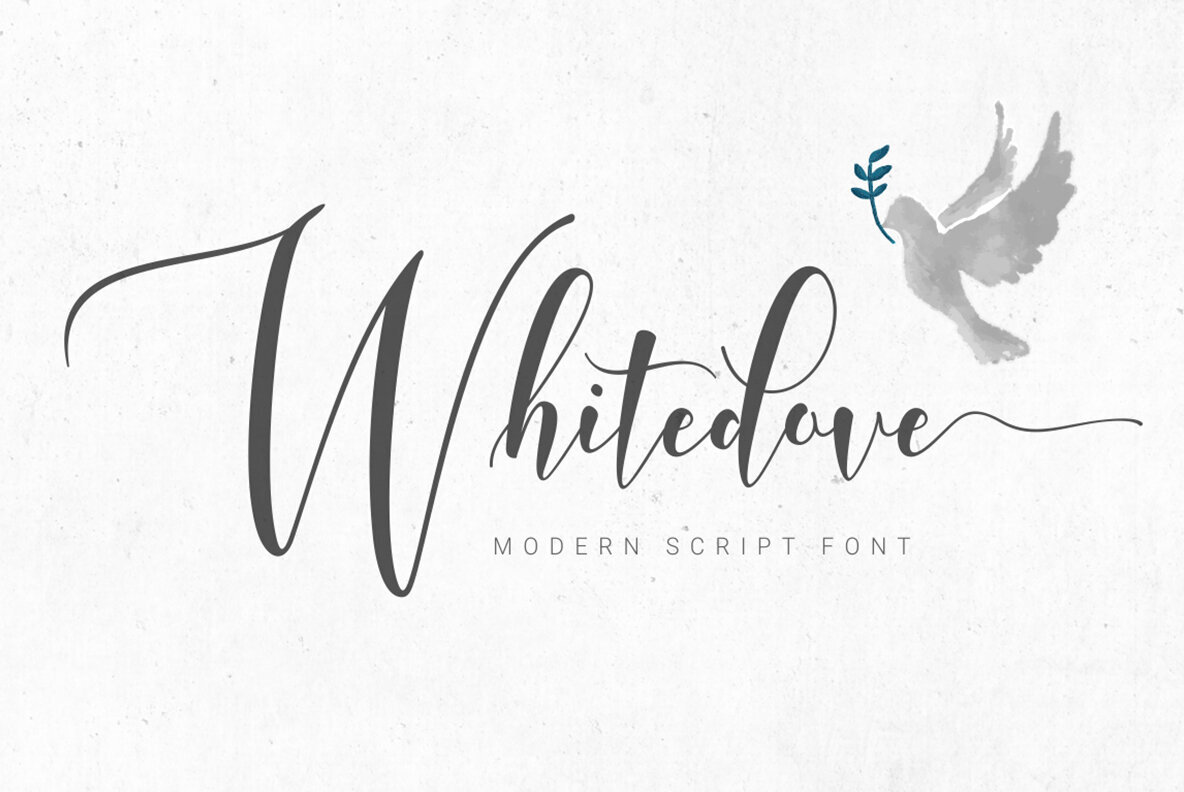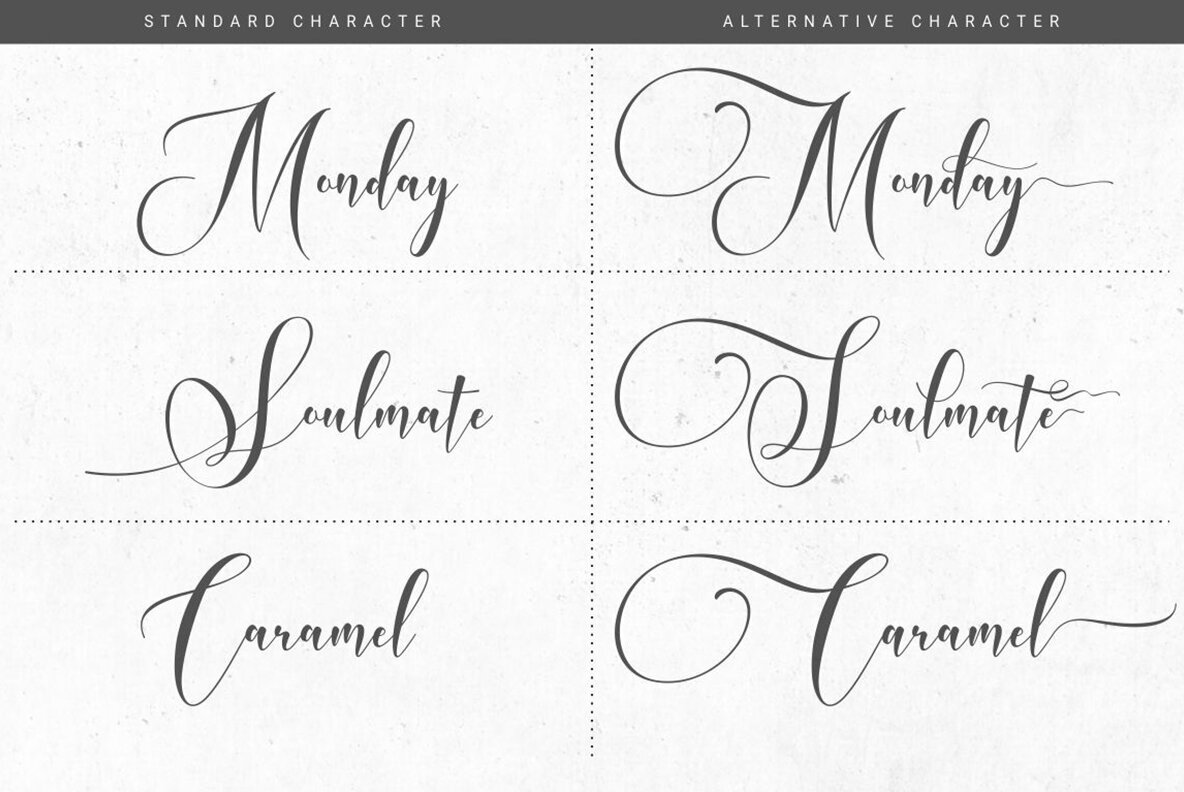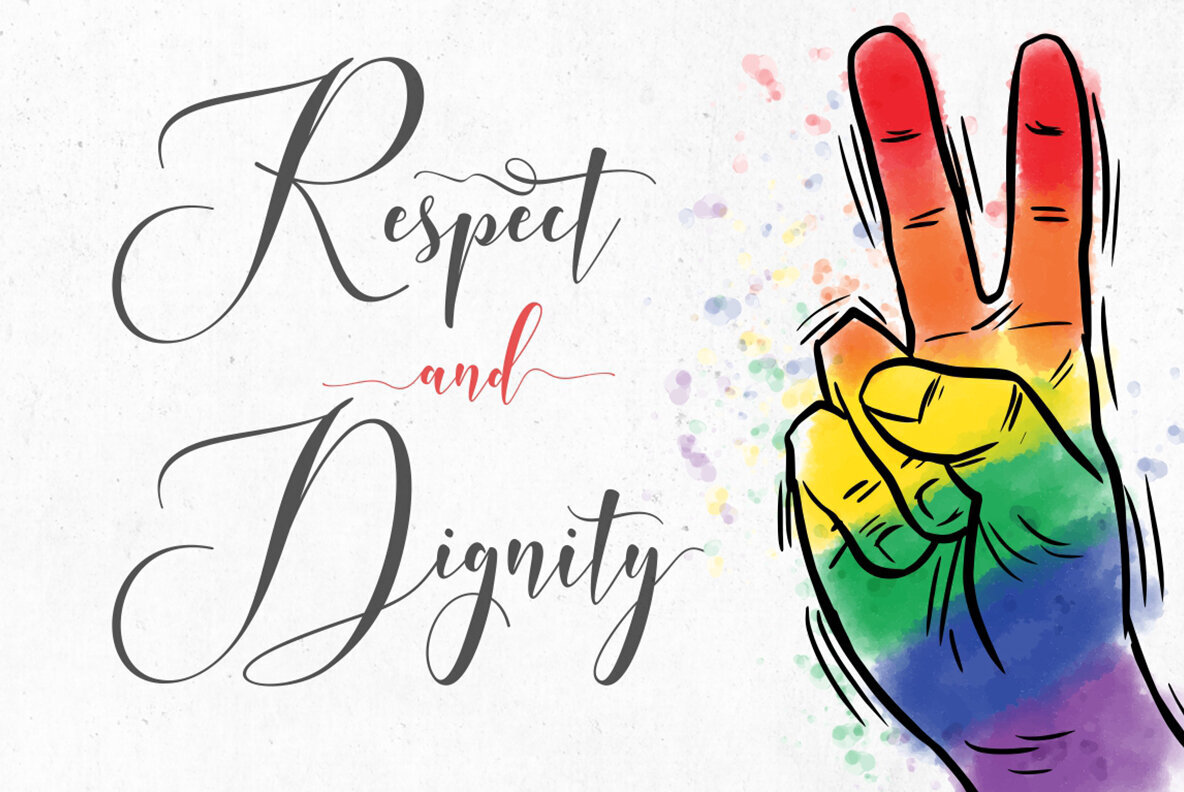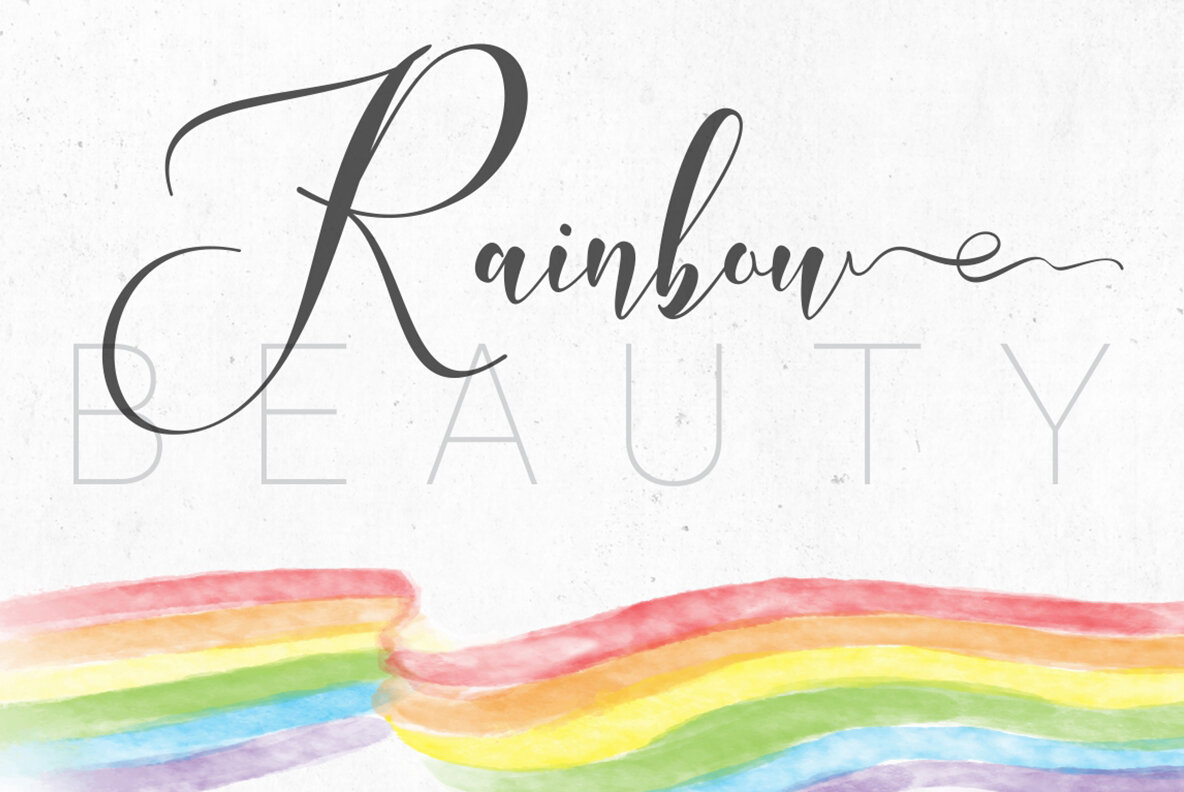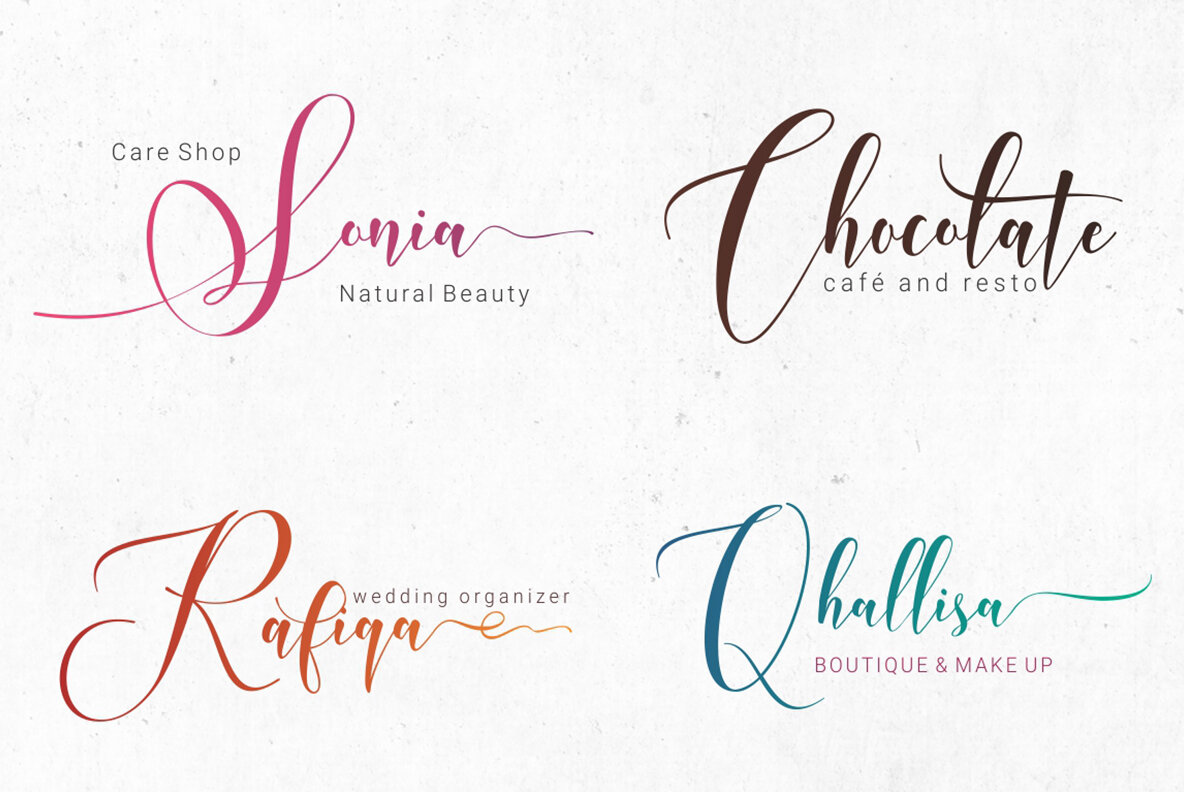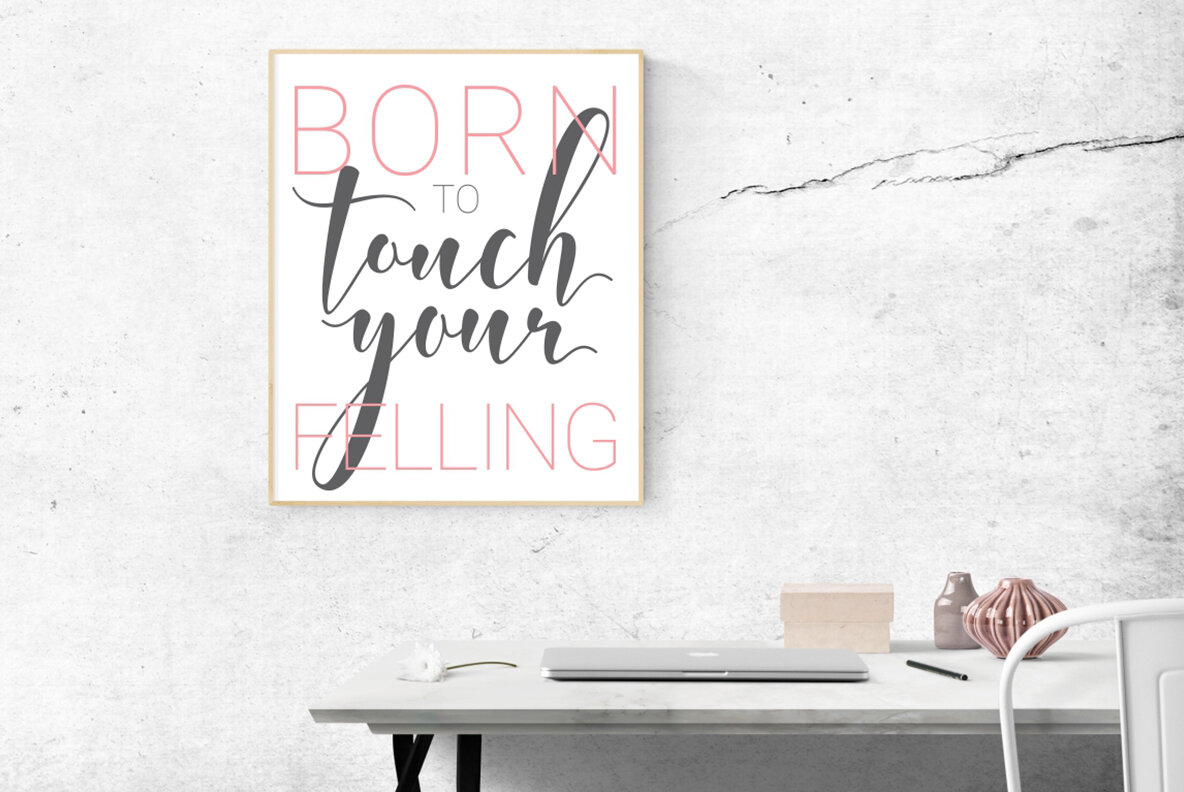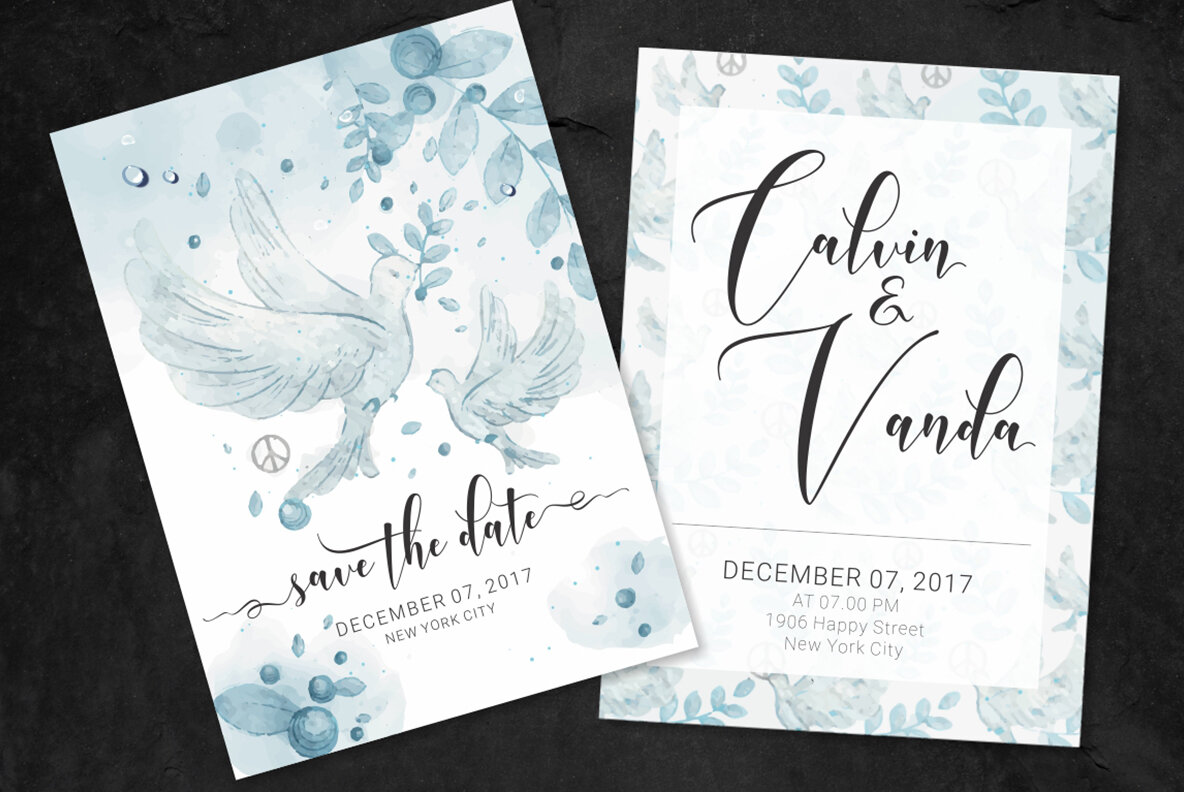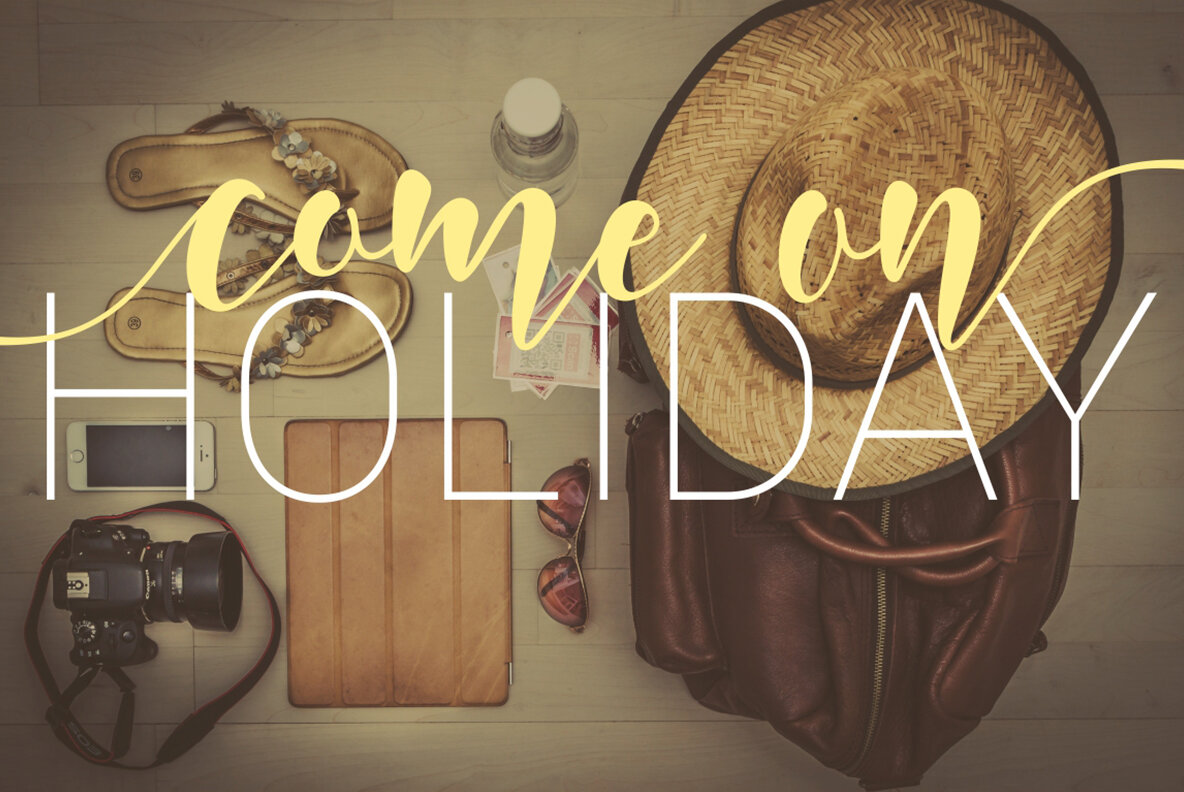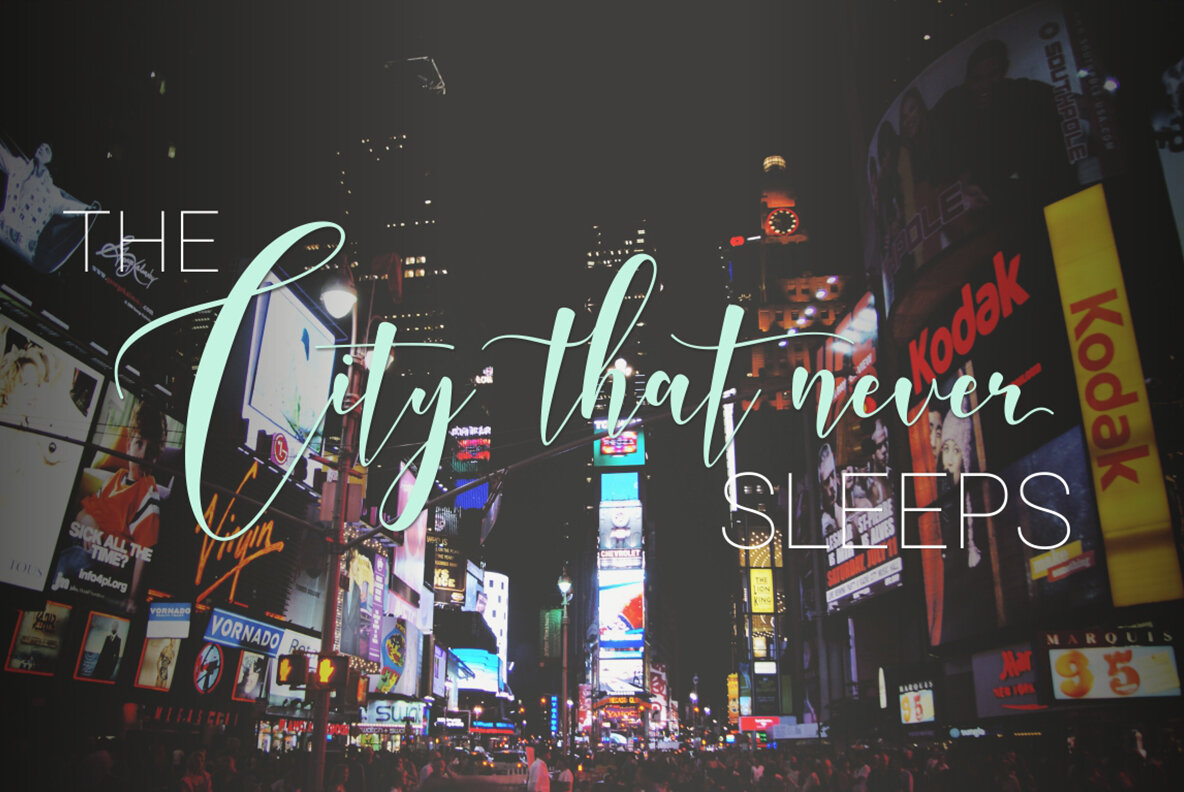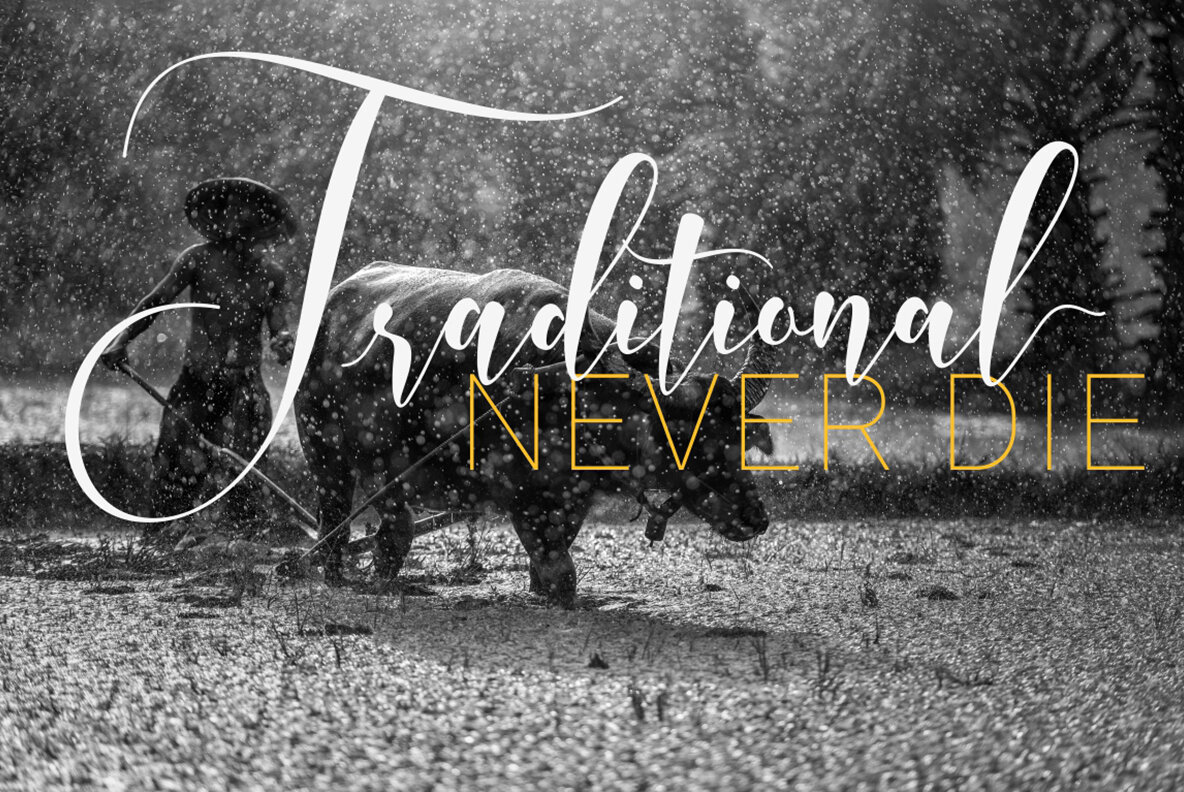
Whitedove Font
Whitedove Script
Discover the elegance of Whitedove Modern Script, a beautifully crafted font with a sweet, smooth handwritten style. Designed to enhance your collection, this typeface stands out with its 650 alternate characters, allowing for exceptional creativity in your projects.Whitedove Modern Script